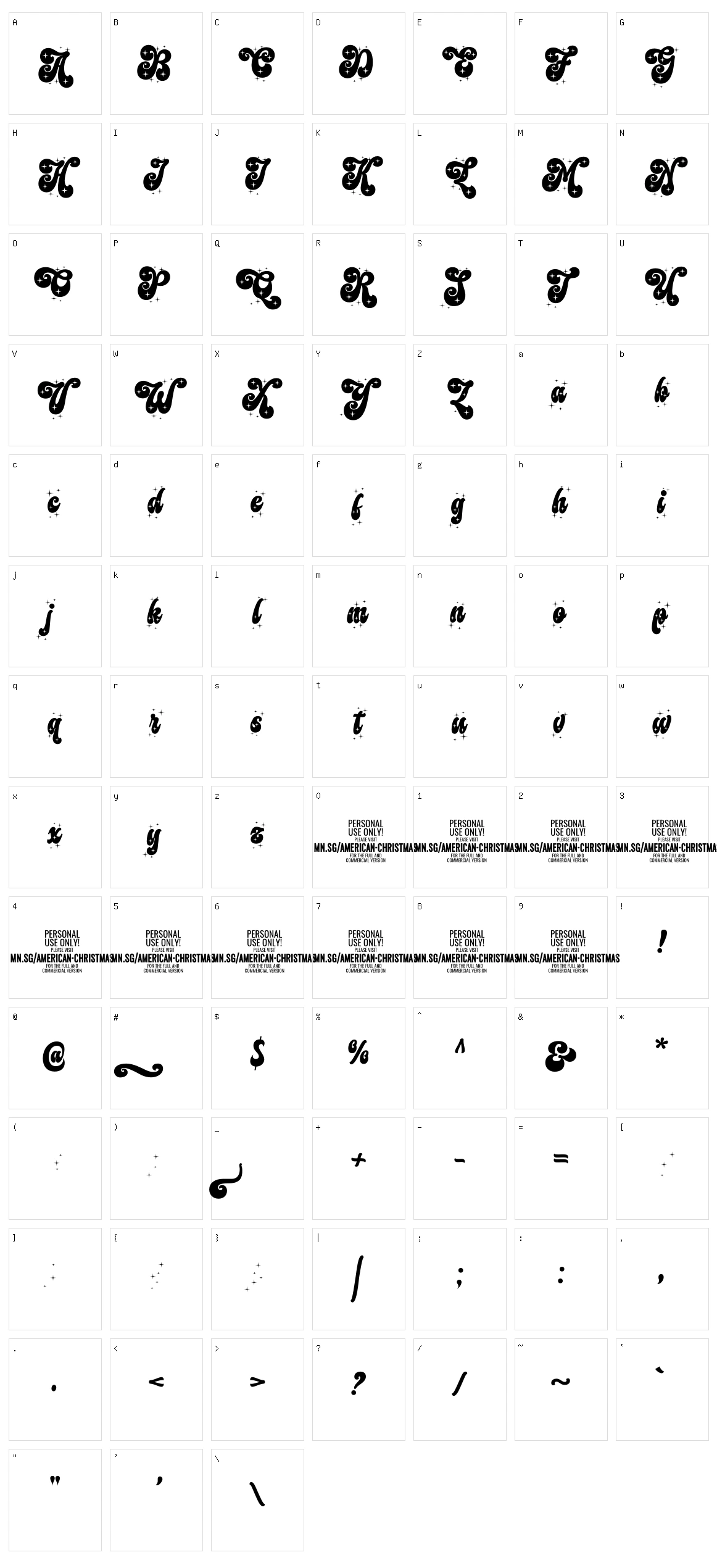
American Christmas is a funky and decorative season's typeface.
As a cozy winter script, it brings a festive touch to every word, with letters that seem to dance joyously across the page. Its bold flow is reminiscent of retro holiday signage, evoking a sense of nostalgia and warmth. This typeface is adorned with stars that twinkle like lights on a tree, adding a sparkle to your seasonal greetings.
This typeface family is provided in three starry versions and one clean, and also comes with an extra symbol font for beautiful Xmas icons.
Use parenthesis symbols () [] {} to make stars around any word.
Example: {Xmas}[Songs]
Use underscore _ after any word to make a swash.
Example: Santa_
Multiple underscores makes longer tails.
Example: Yuletide____
The font is built with advanced OpenType functionality and guaranteed top-notch quality, containing stylistic and contextual alternates, ligatures and more automatic and manual features; all to give you full control and customizability.
With American Christmas, Mans Greback has crafted a typeface that captures the essence of the holiday spirit. Each character is designed to convey the excitement and heartfelt connection of the season, making it an ideal choice for those moments when you want your message to be wrapped in the warmth of the holidays.